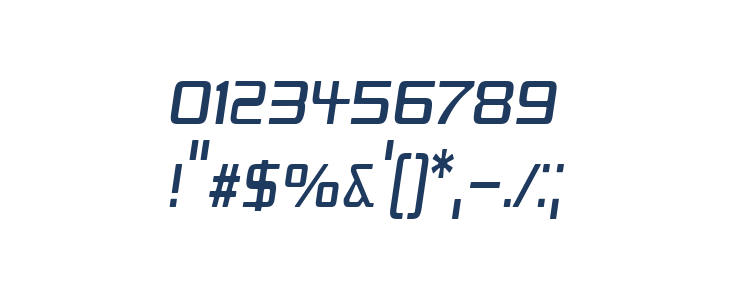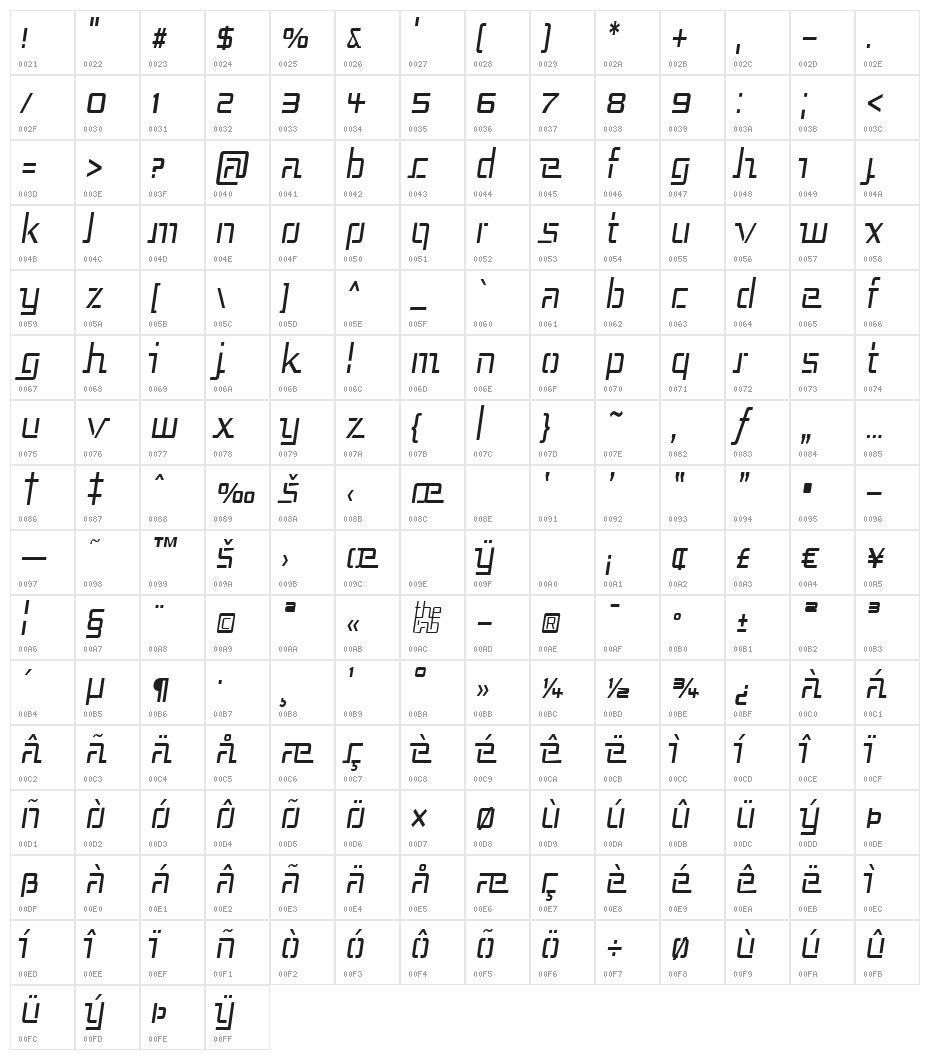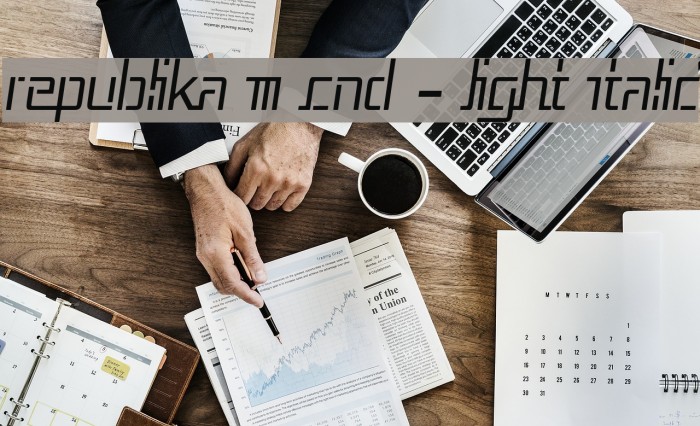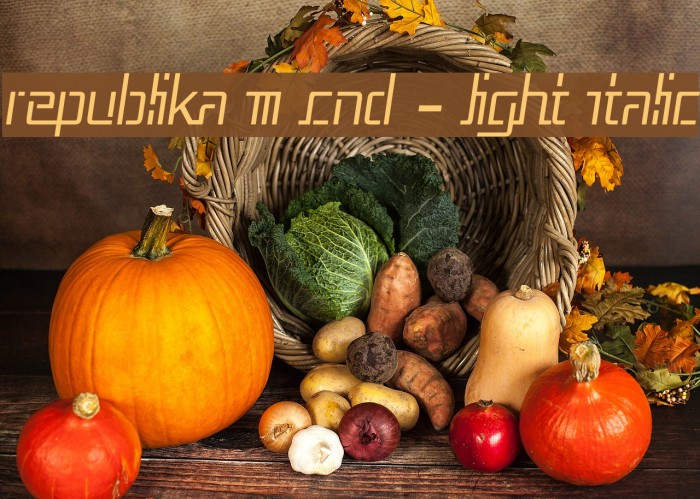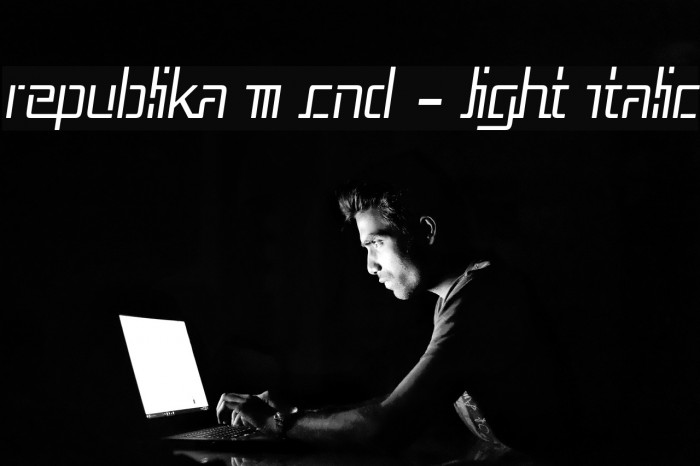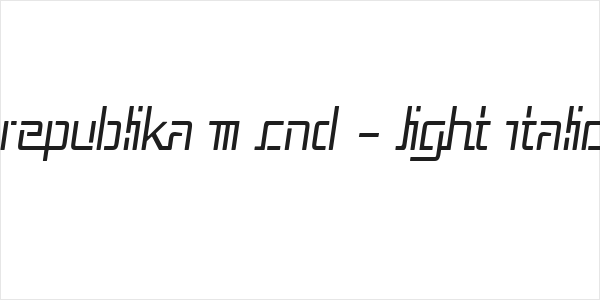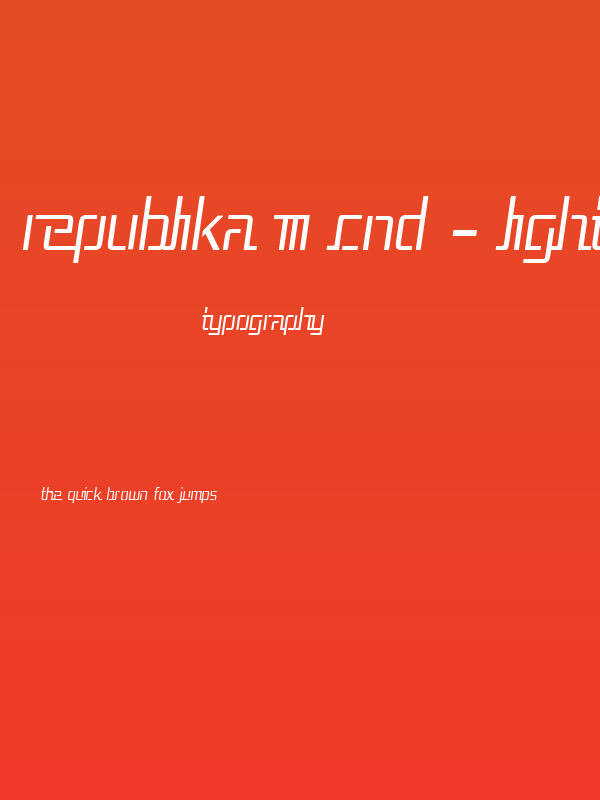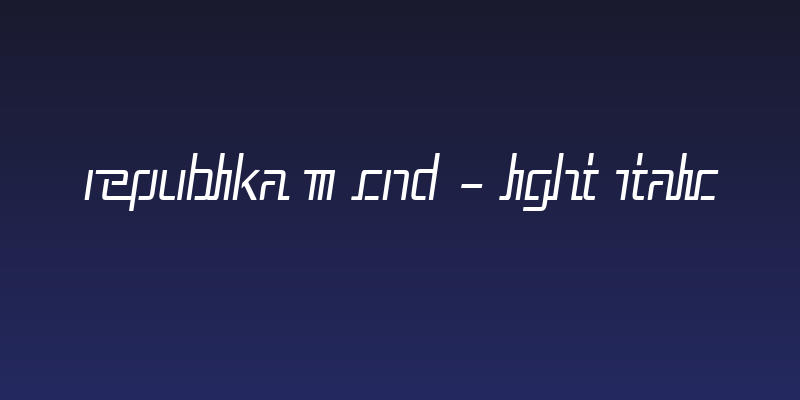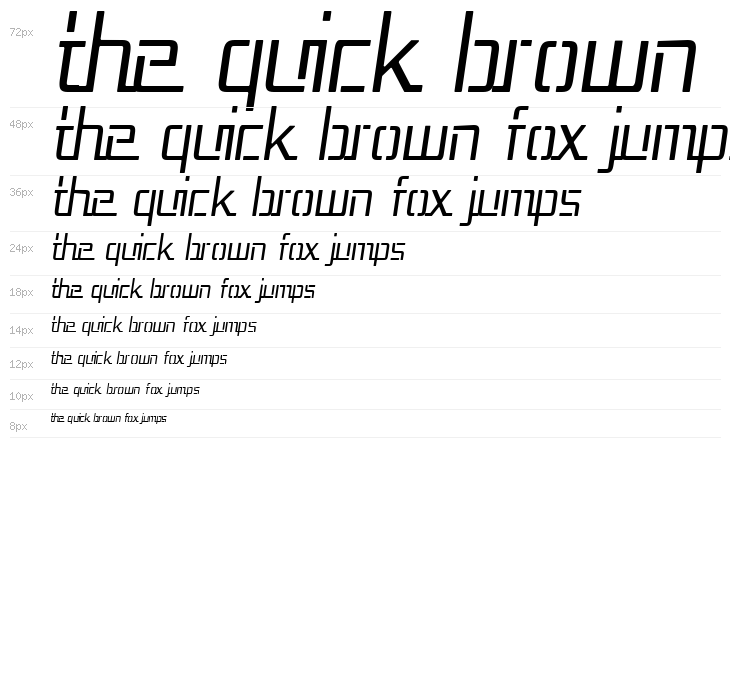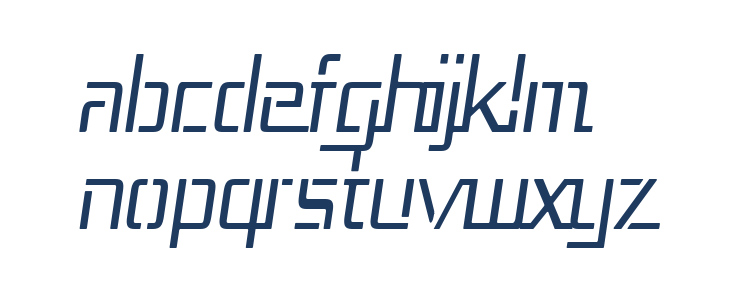
Republika III Cnd - Light Italic Font
Republika III Cnd - Light Italic Description
This font features a sleek, modern design with a condensed and italicized style. Its geometric and angular letterforms give it a futuristic and technical appearance, making it ideal for projects that require a contemporary and cutting-edge look. The characters are uniformly spaced, providing a clean and organized aesthetic. The font's light weight adds to its elegance, while the italic slant introduces a sense of motion and dynamism. This combination of features makes it suitable for a variety of creative applications where a modern and stylish impression is desired.
| Use Case | Headlines, Logos, Digital interfaces |
| Proposed Projects | Ideal for tech branding, modern advertising, futuristic posters, and digital interfaces. |